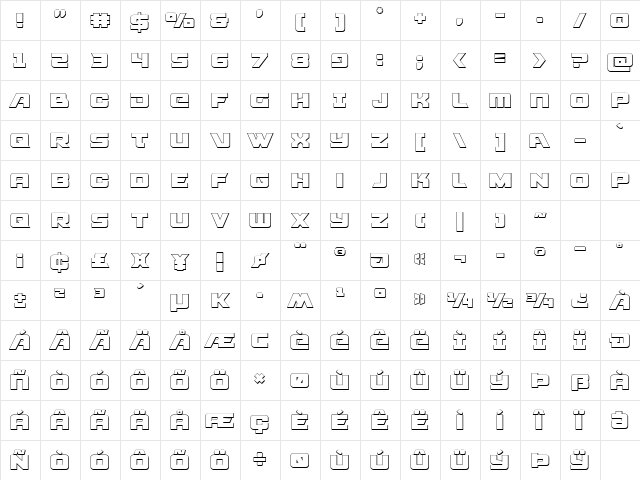
Complete Aircruiser Outline glyph index. Displaying only characters natively supported by Aircruiser Outline font.
Aircruiser is built around its visual character rather than neutral utility - its distinctive forms are designed to make an impression at display sizes.
Font Pairing: Pair with a clean neutral sans-serif for body copy to let Aircruiser's character lead without overwhelming the composition.
Pro Tip: Use Aircruiser exclusively at display sizes - it was designed to be seen, not read at length. Let a neutral companion handle body copy.